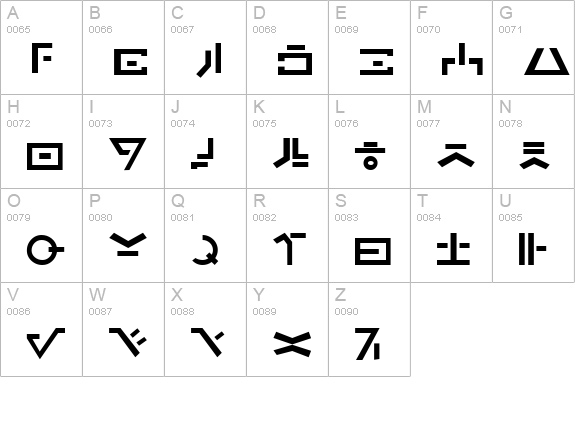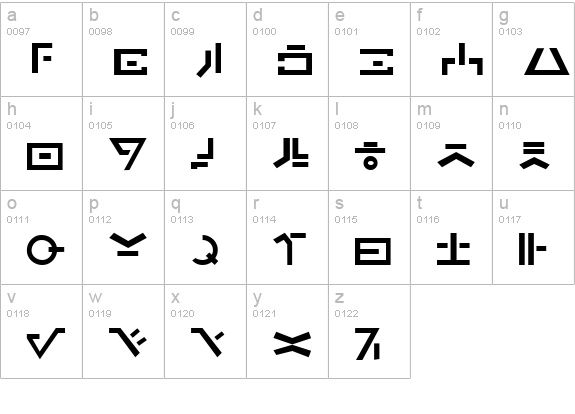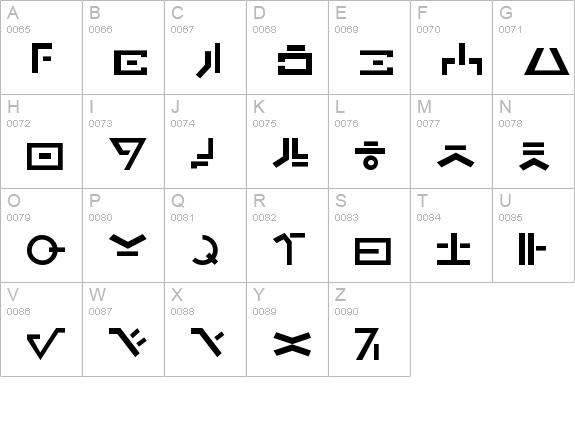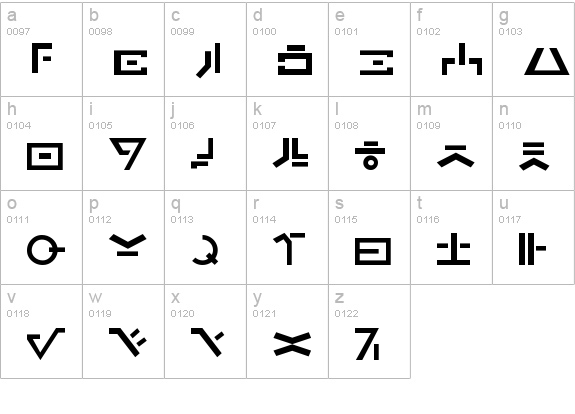
SW trade Huttese Font Details
The SW Trade Huttese font is a unique and visually appealing typeface inspired by the iconic language spoken by the Hutts in the Star Wars universe. This font captures the essence of the Huttese dialect with its intricate and exotic design, making it the perfect choice for fans of the galaxy far, far away. With its bold and distinctive characters, the SW Trade Huttese font adds a touch of otherworldly charm to any project. And the best part? This font is available for free download at FontsMarket.com! Embrace the power of the Hutts and bring a touch of the Star Wars universe to your designs with the SW Trade Huttese font. Download it now and let your creativity soar to new galaxies!